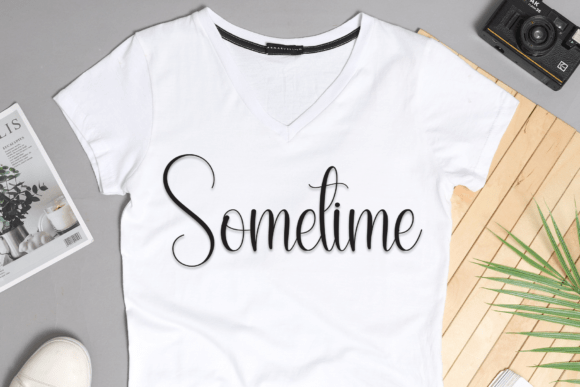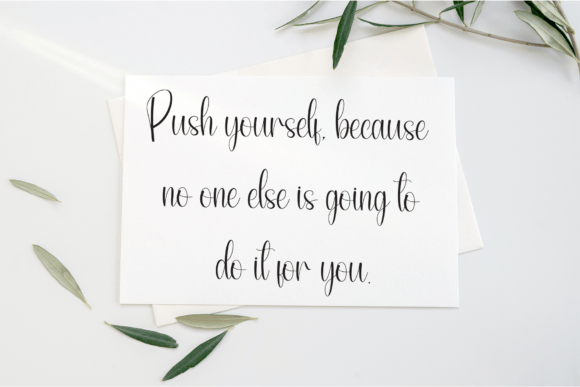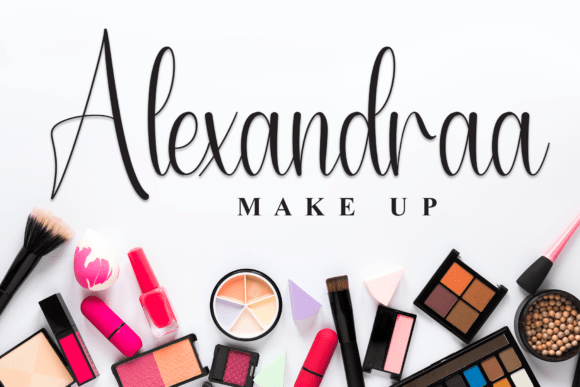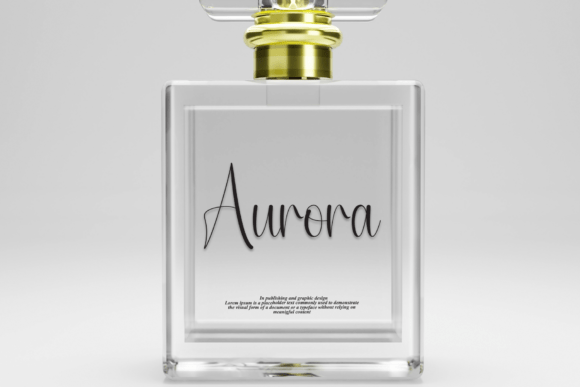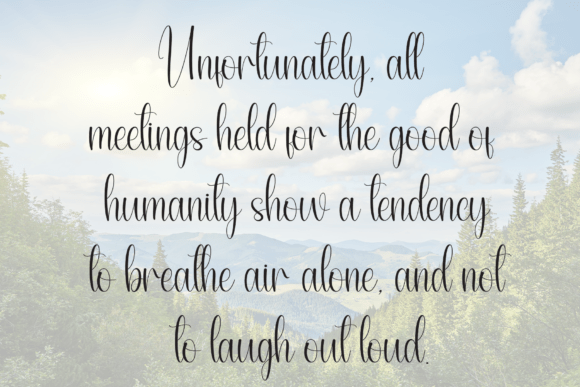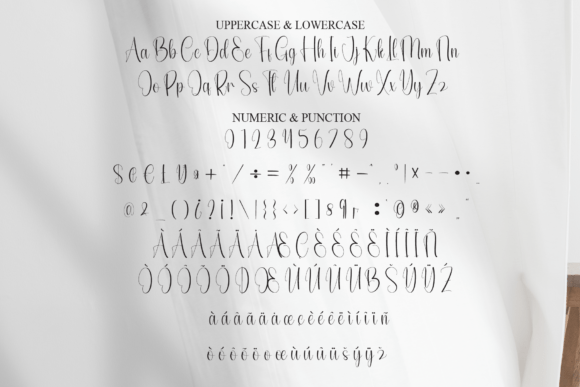
Introducing Background Font: Elevate Your Designs with Elegance and Playfulness
In the world of typography, few fonts manage to strike a balance between elegance and playfulness. Background Font is one such gem that effortlessly combines these qualities, making it a perfect addition to your design arsenal. This stylish handwritten script font is designed to bring a touch of sophistication and charm to your projects, whether you’re working on invitations, branding, social media, or any other creative endeavor.
The Essence of Background Font
Background Font is more than just a typeface; it’s an expression of creativity and warmth. Its flowing curves and natural rhythm give it a unique personality that can instantly elevate the aesthetic of your designs. The font’s graceful design is not just visually appealing but also versatile, making it suitable for a wide range of applications.
Key Features of Background Font
- Elegant and Playful: Background Font strikes the perfect balance between elegance and playfulness, making it ideal for designs that require a touch of sophistication and fun.
- Handwritten Script: The font’s handwritten script style gives it a personal and charming touch, perfect for adding a human element to your designs.
- Flowing Curves: The flowing curves and natural rhythm of Background Font make it easy to read and visually appealing.
- Versatile: Whether you’re designing invitations, branding materials, or social media content, Background Font can adapt to any style or theme.
Uses of Background Font
Background Font’s versatility makes it suitable for a variety of design projects. Here are some of the ways you can use this beautiful font:
- Invitations: Add a touch of elegance and playfulness to your invitations, making them stand out and memorable.
- Branding: Use Background Font to create a unique and charming brand identity that resonates with your audience.
- Social Media: Elevate your social media content with Background Font, making your posts and stories more engaging and visually appealing.
- Stationery: Add a personal touch to your stationery designs, such as business cards, letterheads, and more.
Benefits of Using Background Font
Using Background Font in your designs comes with several benefits:
- Unique Identity: Background Font helps you create a unique and distinctive identity for your brand or project.
- Emotional Connection: The font’s personal and charming touch can help you establish an emotional connection with your audience.
- Versatility: Background Font’s versatility makes it easy to use across various design projects and applications.
- Time-Saving: With Background Font, you can save time and effort in creating custom typography for your designs.
Tips for Using Background Font Effectively
To get the most out of Background Font, here are some tips to keep in mind:
- Pair with Other Fonts: Experiment with pairing Background Font with other fonts to create a unique and harmonious typography combination.
- Adjust Font Size: Adjust the font size to create visual hierarchy and emphasize important elements in your design.
- Use Color Wisely: Choose colors that complement the font and enhance its elegance and playfulness.
- Experiment with Styles: Don’t be afraid to experiment with different styles and effects to give Background Font a unique twist.
Background Font is a stylish and versatile handwritten script font that can elevate your designs with its elegance and playfulness. With its flowing curves, natural rhythm, and charming touch, it’s perfect for adding a personal and sophisticated element to your projects. Whether you’re a designer, crafter, or DIY enthusiast, Background Font is a valuable addition to your typography collection.